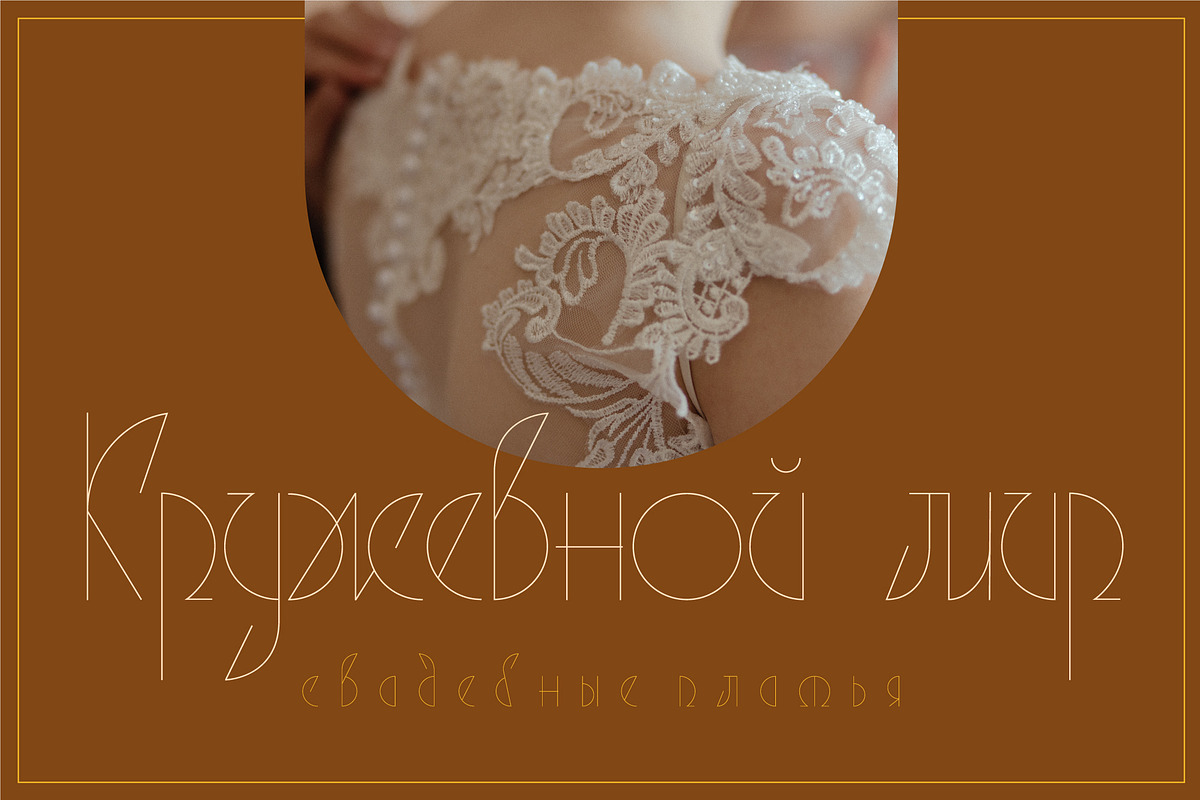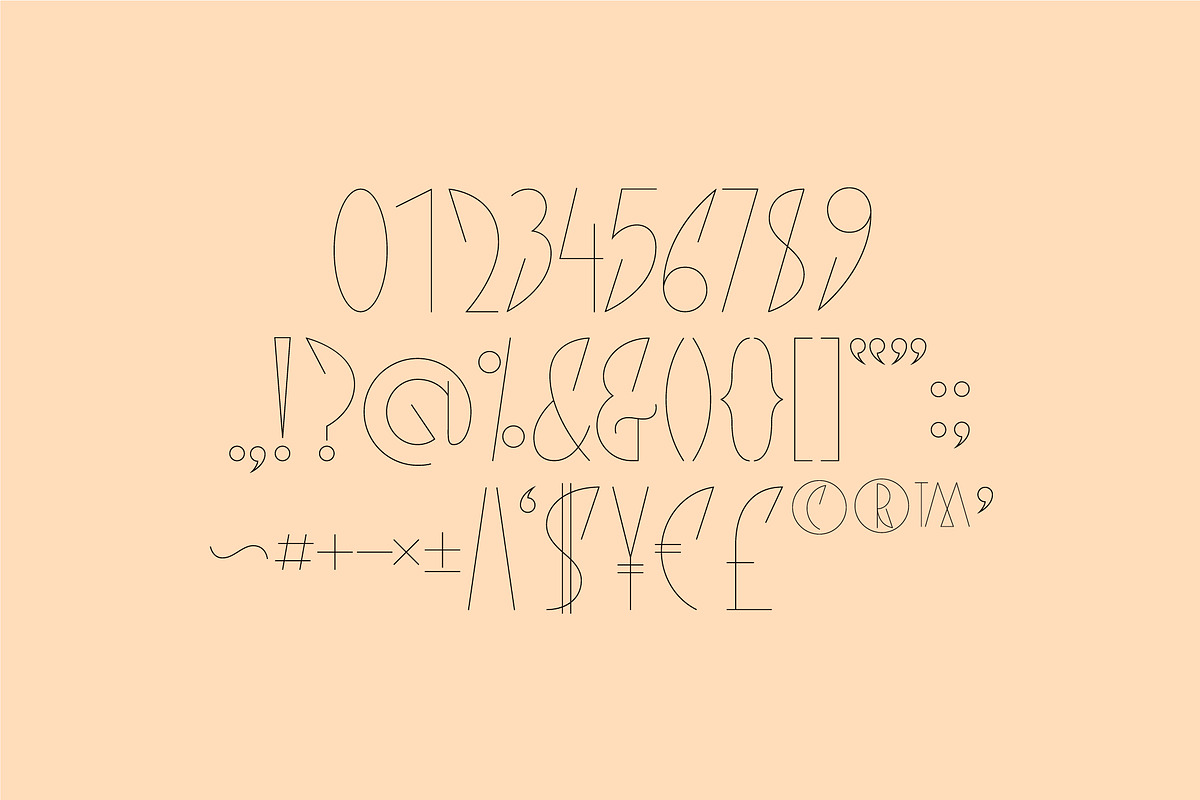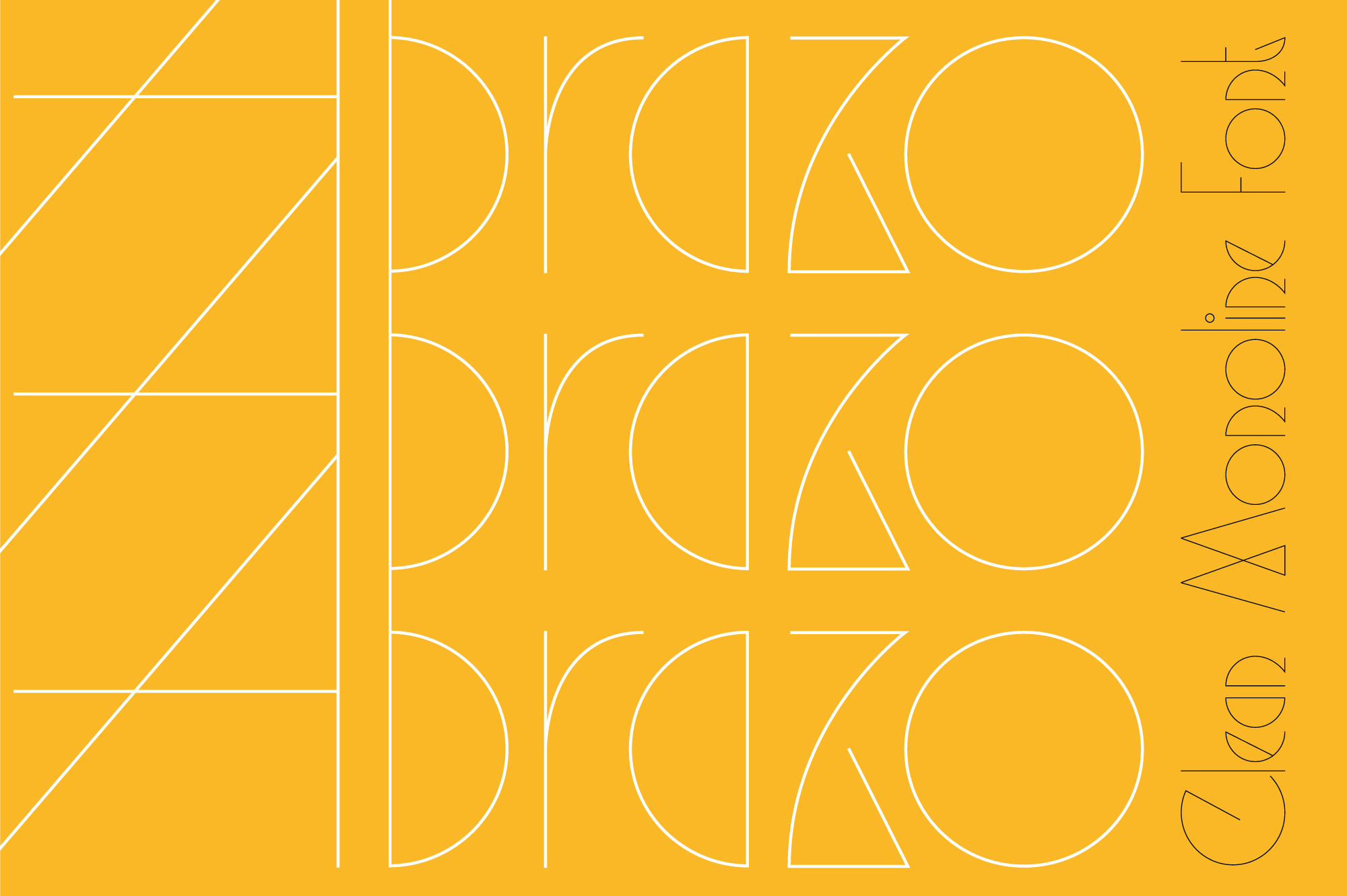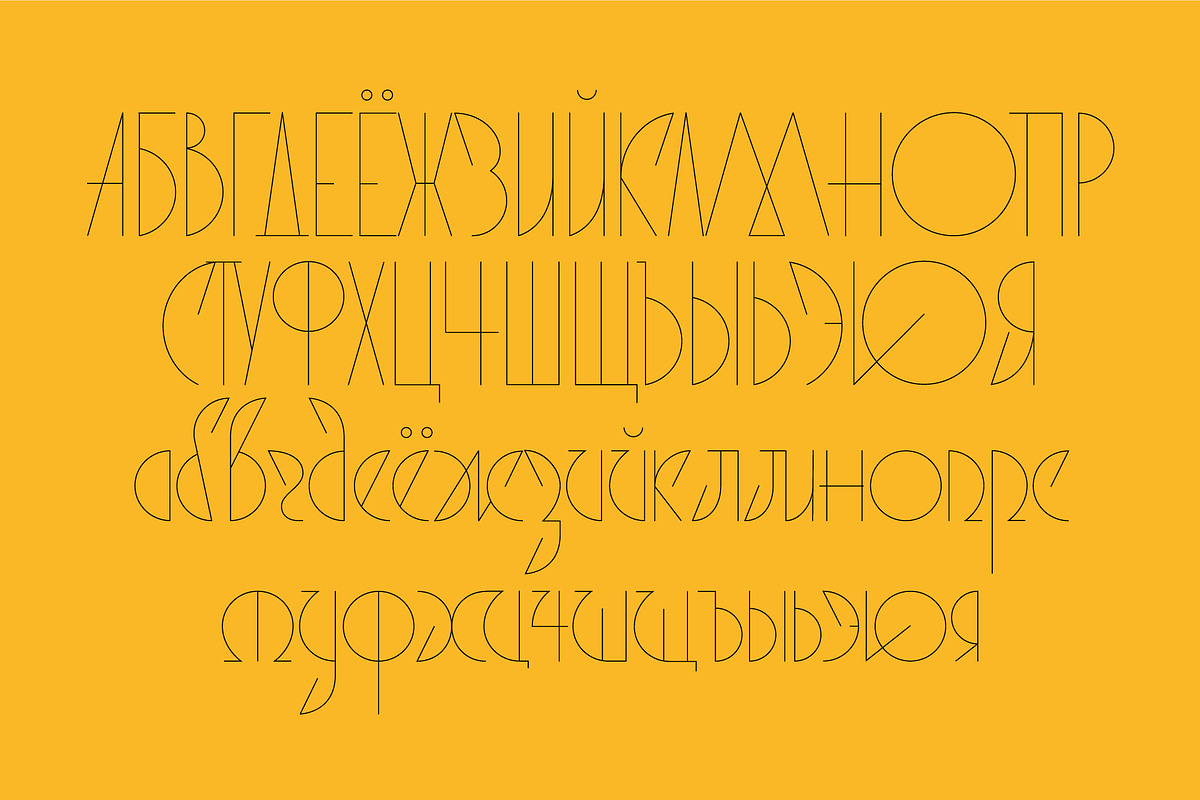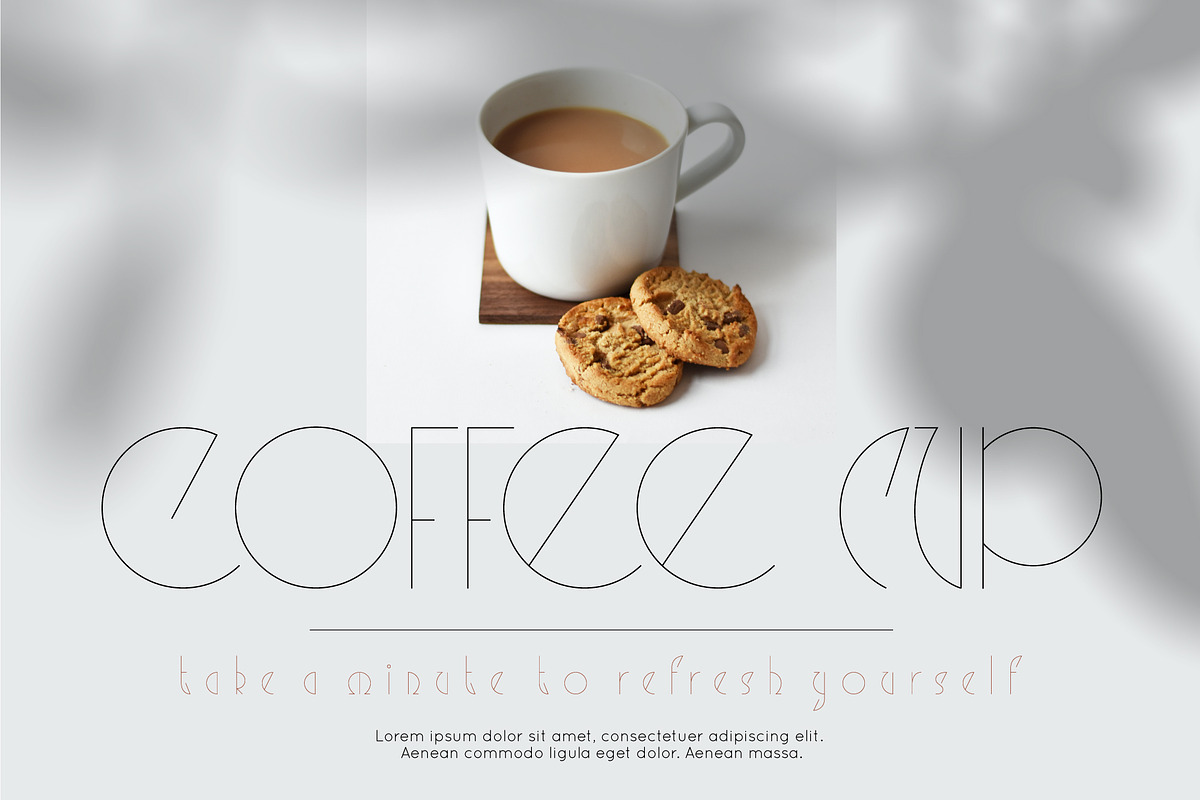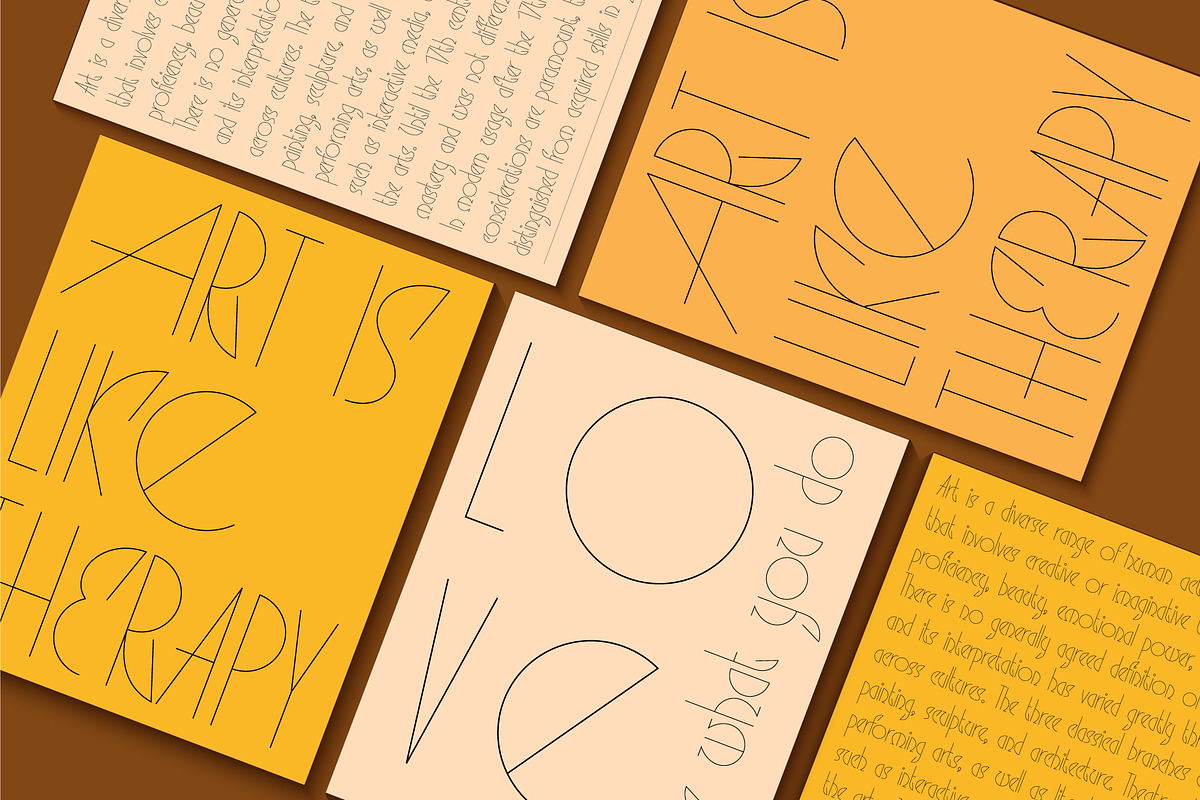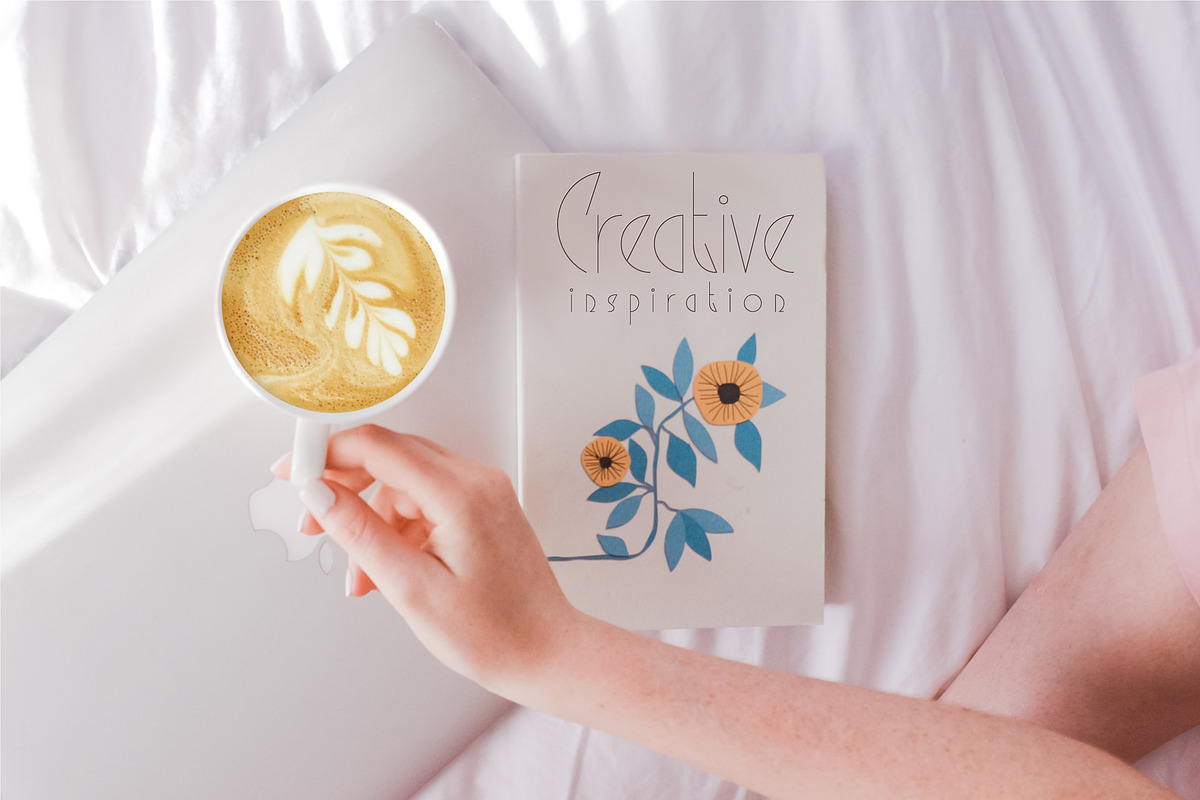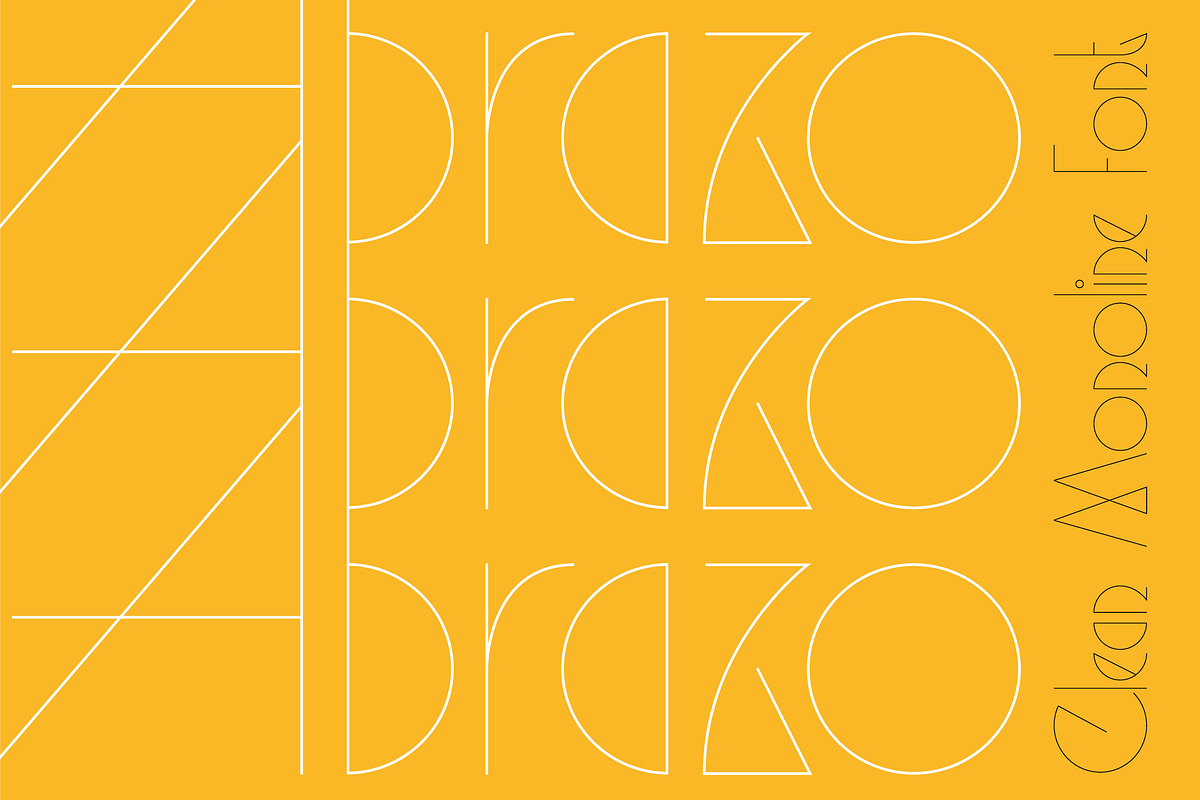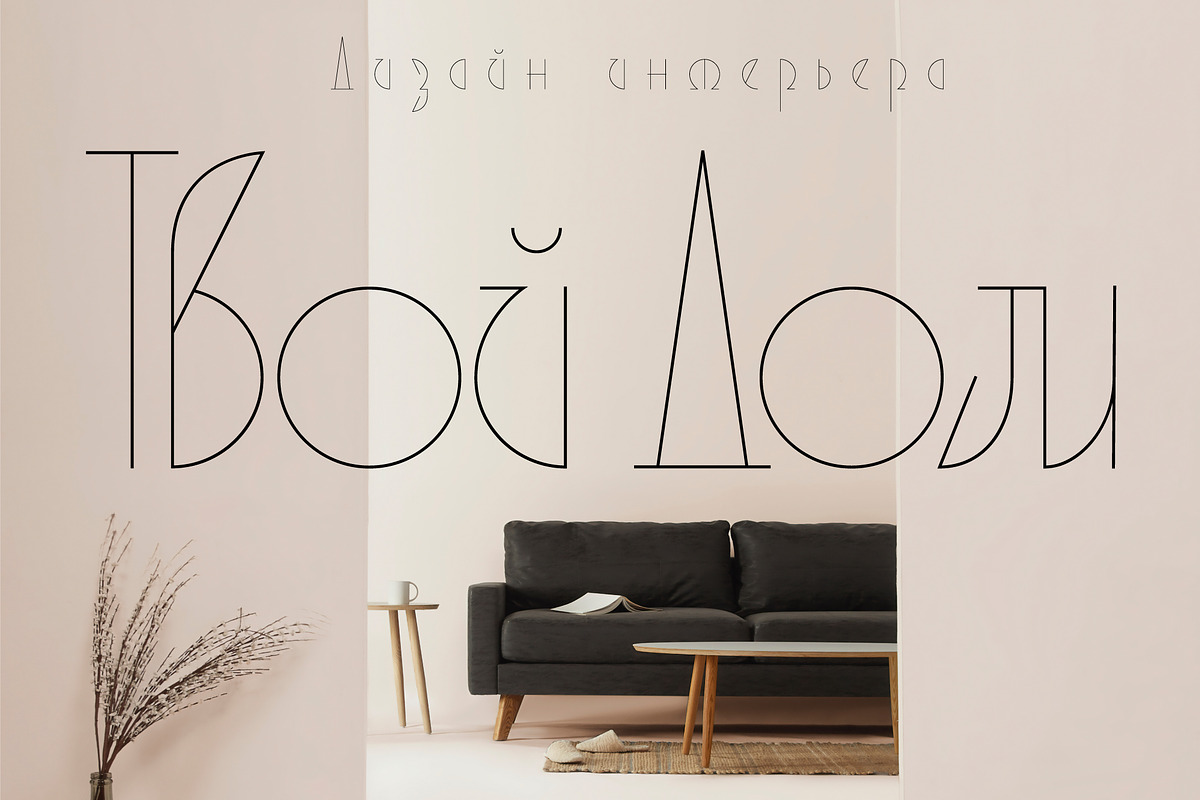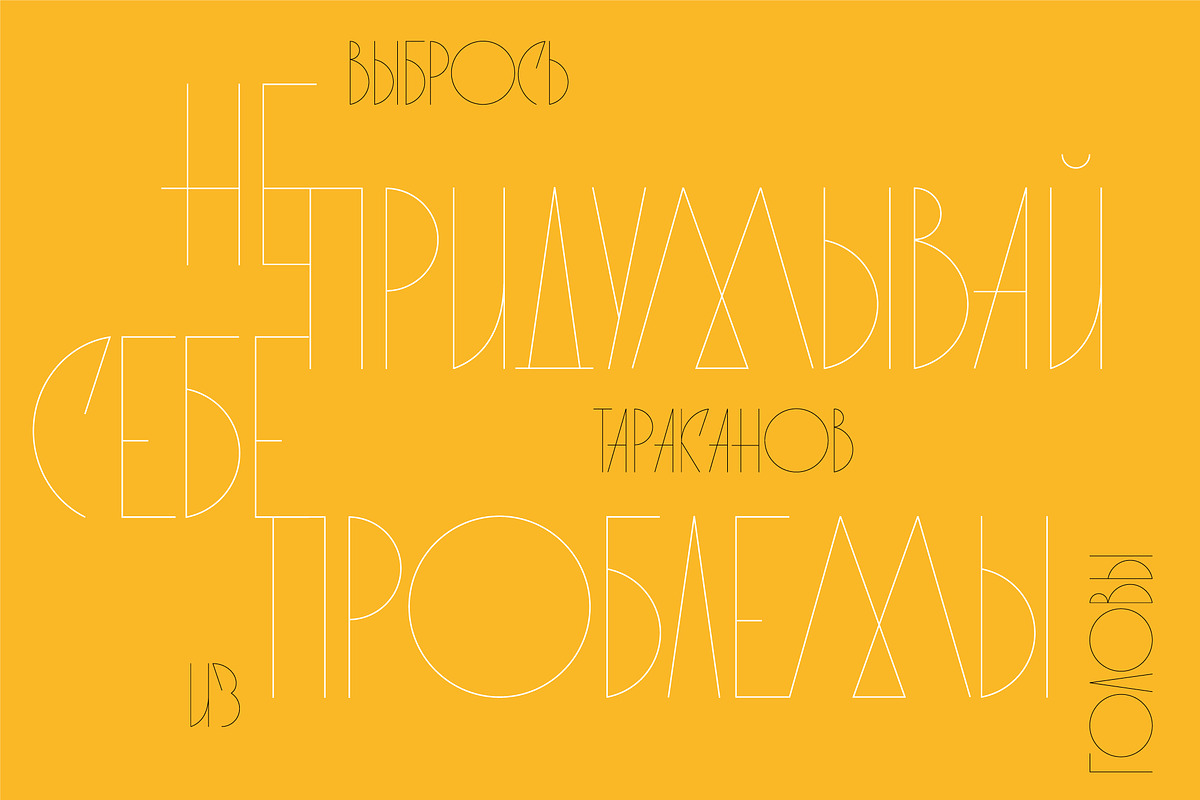
Abrazo - modern sans serif font
Say hello to Abrazo - modern sans serif font with minimal design! This font was designed to make your projects unique and unusual. It has clean monoline uppercase and monoline letters. Lots of alternates are also included.
It is perfect for designers looking to leave an impression. Abrazo is simple but significant. It is perfect for headings, flyers, greeting cards, product packaging, book cover, printed quotes, logotype, apparel design, album covers, etc.
This font has multilingual support (French, German, Italian, Norwegian, Portuguese, Spanish, Swedish, Swiss German). It also has Cyrillic glyphs. Abrazo is provided in OTF, TTF and WOFF formats.